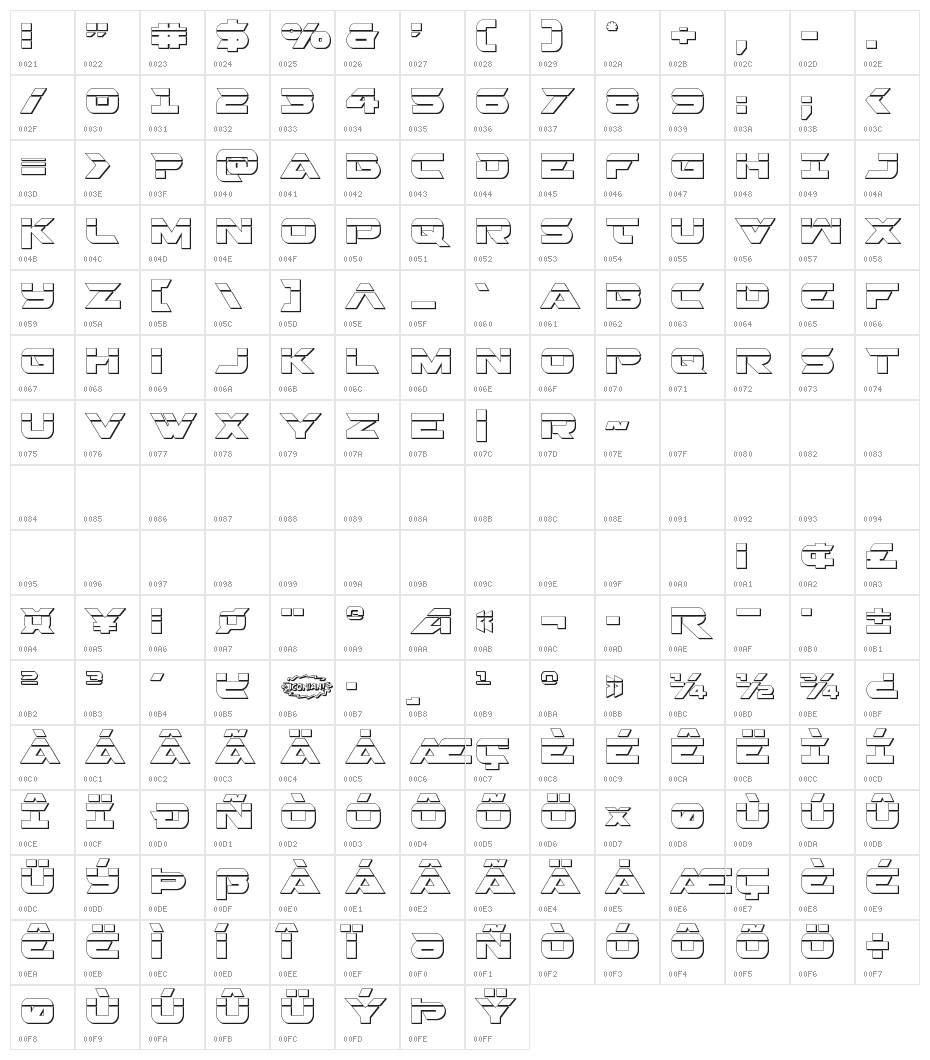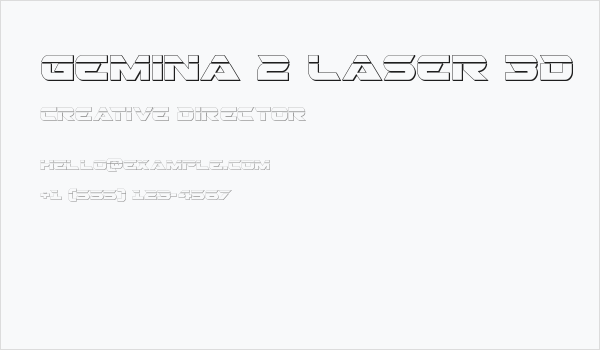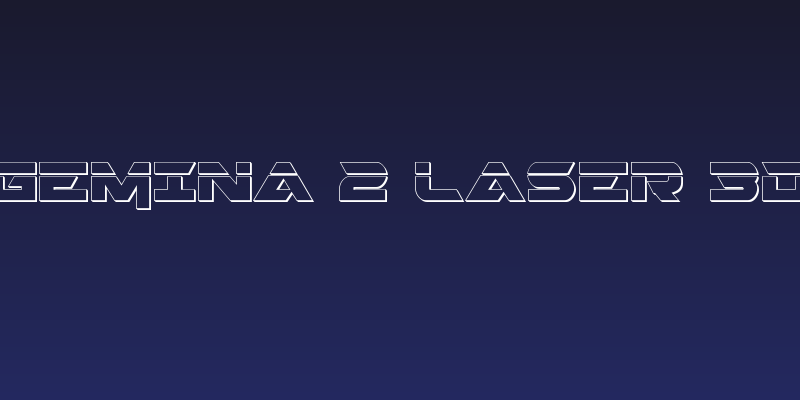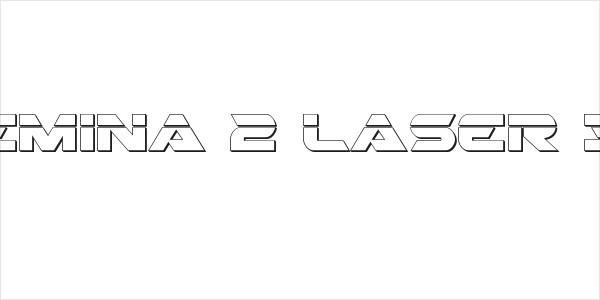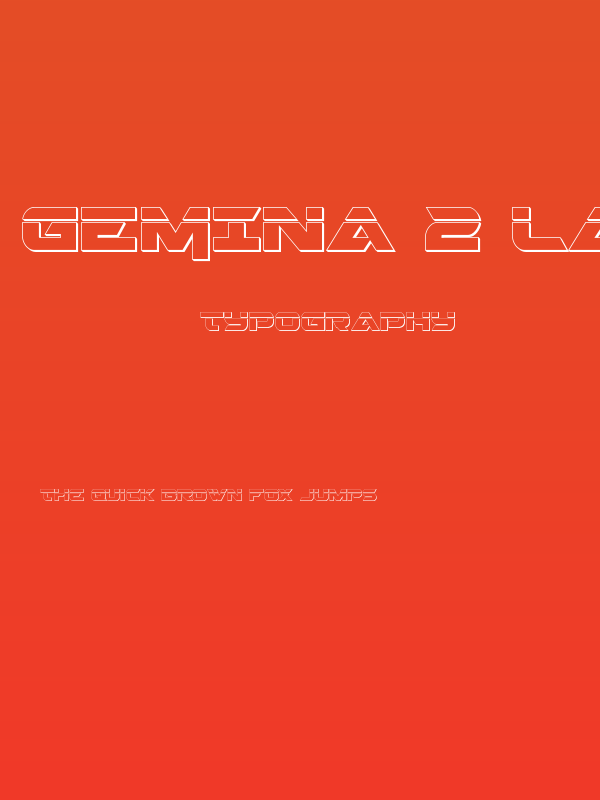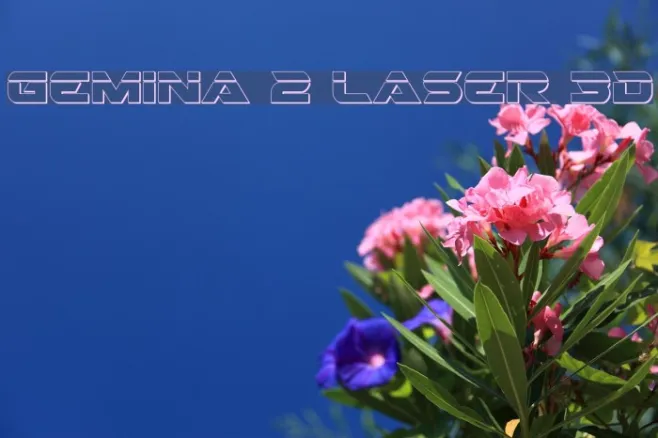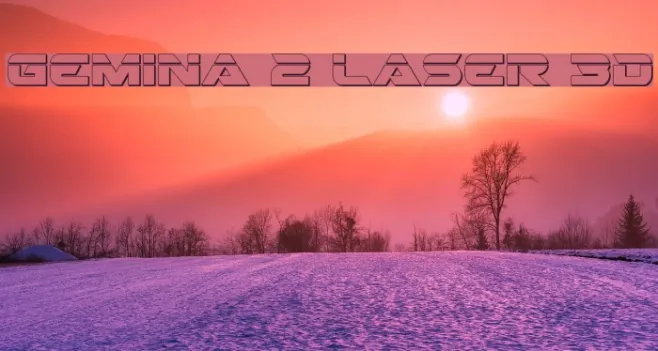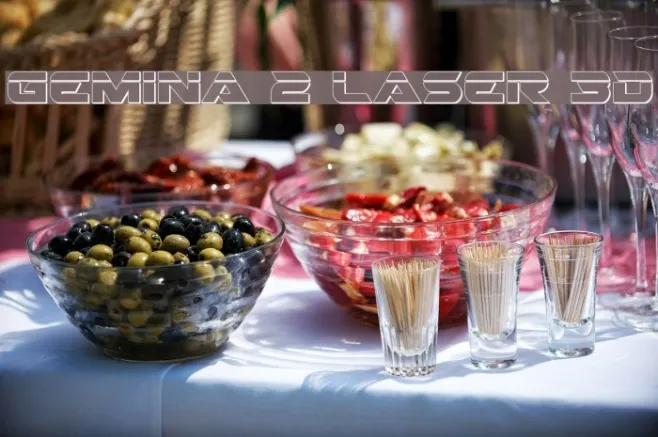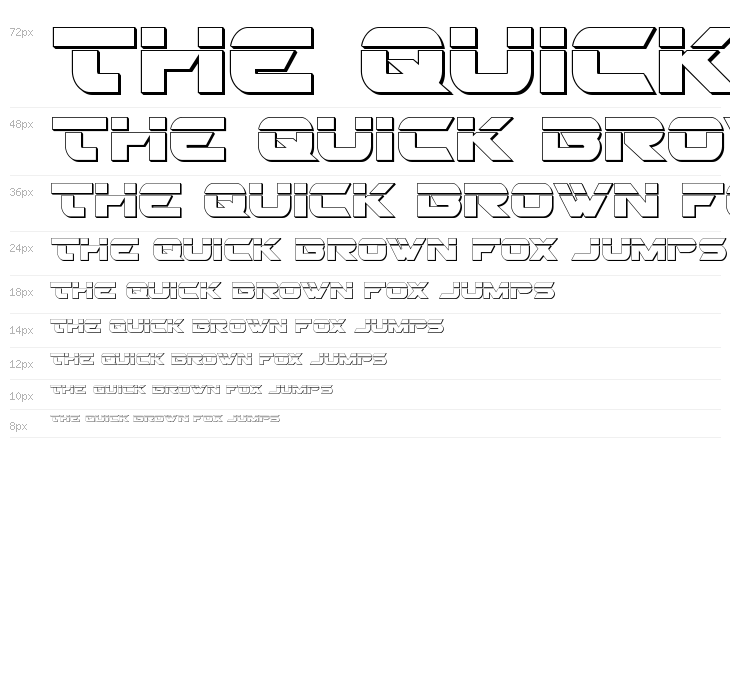
Gemina 2 Laser 3D Font
Gemina 2 Laser 3D Description
This font features a bold, futuristic design with a 3D effect, characterized by geometric shapes and sharp angles. The letters are constructed with a combination of solid and outlined segments, giving them a dynamic and modern appearance. The uppercase and lowercase letters maintain a consistent style, with the numbers and special characters following the same design principles. The overall look is highly stylized, making it suitable for projects that require a strong visual impact. The font's unique structure and angular forms make it stand out, ideal for creative and innovative designs.
| Proposed Projects | Ideal for sci-fi themed projects, video game titles, tech branding, and futuristic posters. |